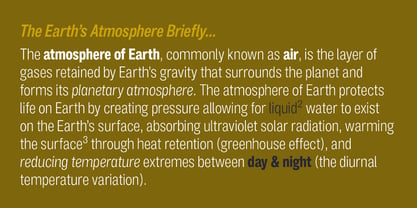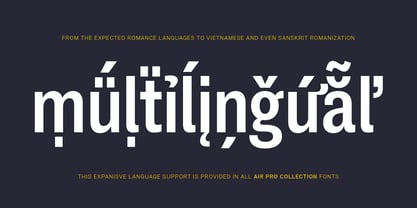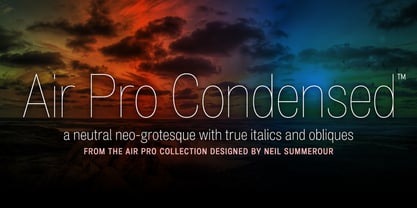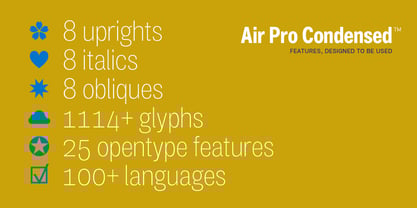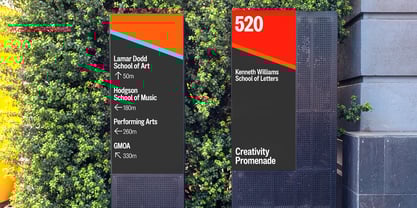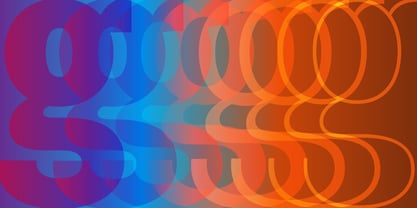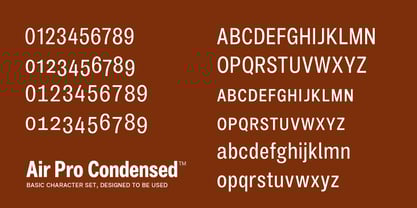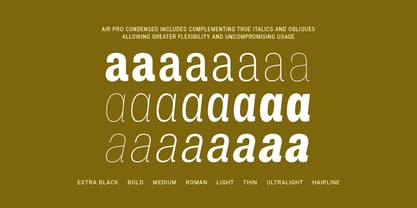
Air Pro Condensed
La familia tipográfica Air Pro Condensed fue diseñada por Neil Summerour y publicada por Positype. Air Pro Condensed contiene 24 estilos y opciones de paquete familiar.
Air Pro Condensed is a neutral, highly legible neo-grotesque that includes both true italics and obliques. This typeface is refinement and expansion of Air, originally designed in 2011 by Neil Summerour. Heavily influenced by Summerour’s Aaux Next typeface and Akzidenz-Grotesk, the typeface features a very efficient footprint, logical weight options, small caps, expanded numeral sets, extensive language support, and 5 total widths. The new Air Pro Collection focuses on flexibility, accessibility, and usability rather than hinging the design on distracting design traits that could diminish legibility or become dated over time. Besides, even with grotesques, we all need a little fresh air from time to time.